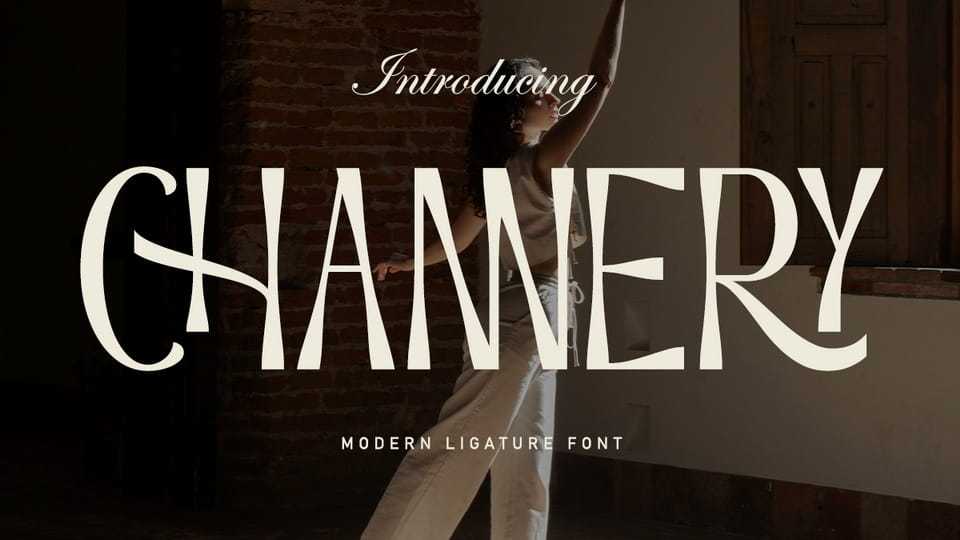
Download Channery font, a modern ligatures typeface crafted with meticulous attention to detail, Channery has over 65 ligatures that effortlessly blend characters, lending your text a fluidity reminiscent of the tower’s iron lattice.